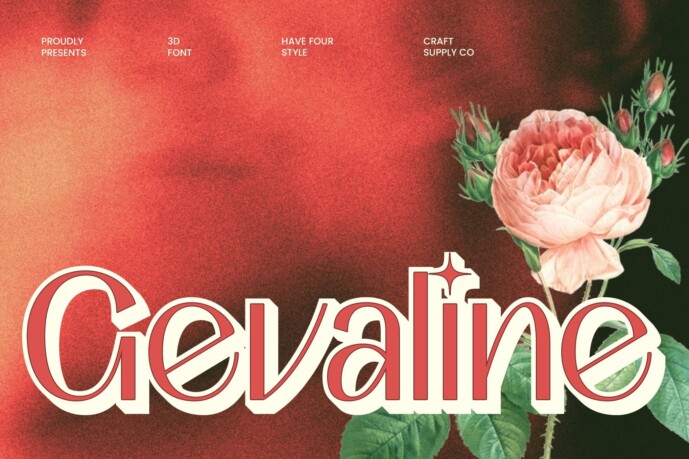
Gevaline Font
Gevaline 3D Font: Sleek, Elegant, and Aesthetically Refined
Modern Sans-Serif with a Graceful Touch Gevaline 3D is a sophisticated sans-serif font that blends sleek minimalism with elegant beauty. Its thin, proportional letterforms exude a sense of grace and refinement, making it a perfect choice for designs that require a modern yet timeless appeal.
3D Effect for Captivating Visual Depth The addition of a subtle yet striking 3D effect enhances the font’s luxurious and aesthetic charm. This effect creates a sense of depth and sophistication, ensuring that text appears dynamic and visually engaging, perfect for high-end and fashion-forward branding.
Perfect for Beauty, Fashion, and Minimalist Design Designed for elegant and stylish projects, Gevaline 3D is ideal for beauty brands, fashion magazines, and luxury packaging. Its refined curves and modern proportions make it a go-to choice for editorial layouts, high-end logos, and contemporary branding that demand a chic and polished look.